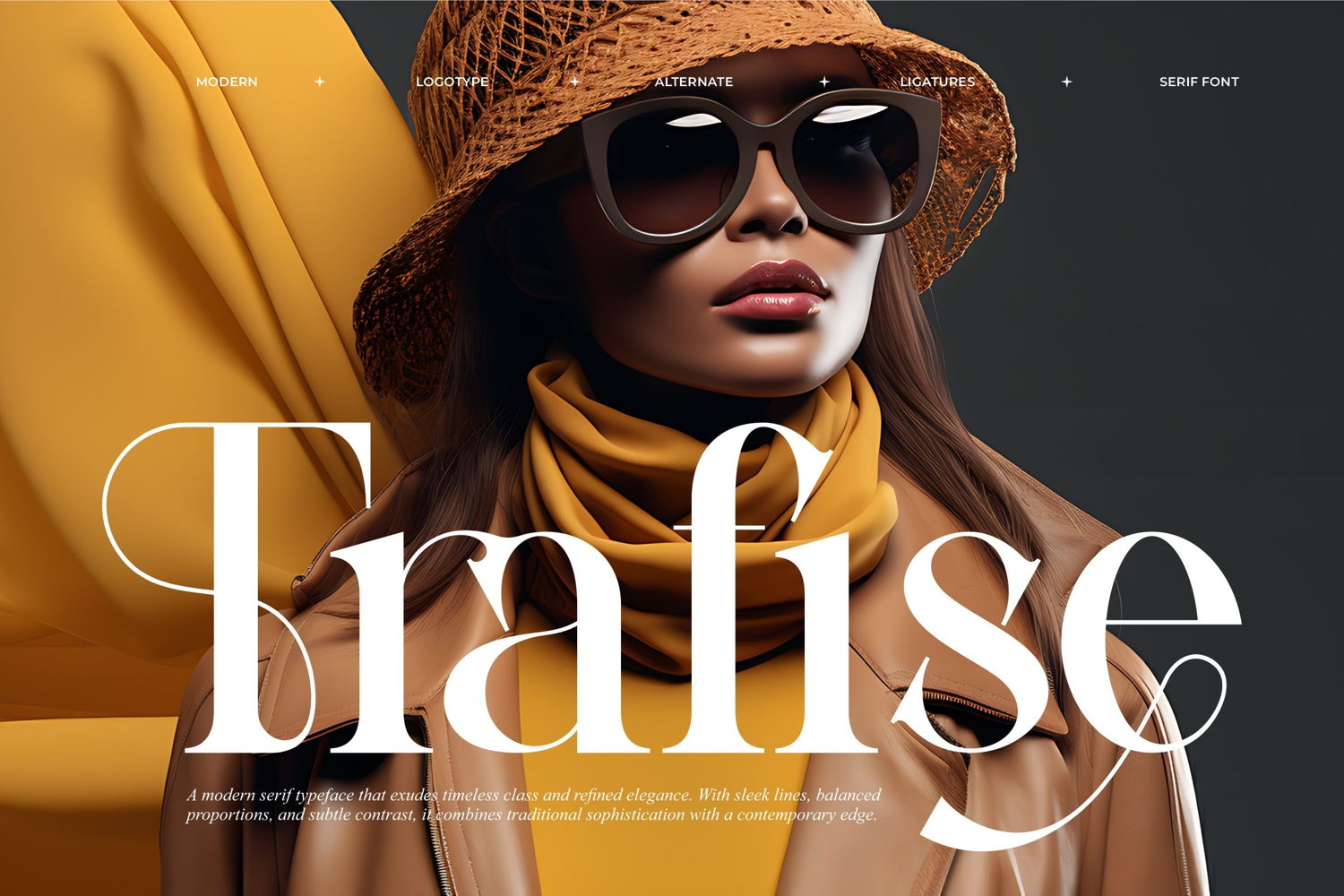
Trafise || Modern Serif Font
Trafise
Trafise Serif is a modern and classy font type for all branding and logo designs. This modern and classy Serif font has a beautiful character. This font is suitable for invitation card designs, cool logos, movie titles, movie names, business cards, book titles, brand names, and various other designs. Trafise Serif is a smooth serif font that exudes sophistication and the moment. Its stylish ligatures make this font a perfect partner for any project.